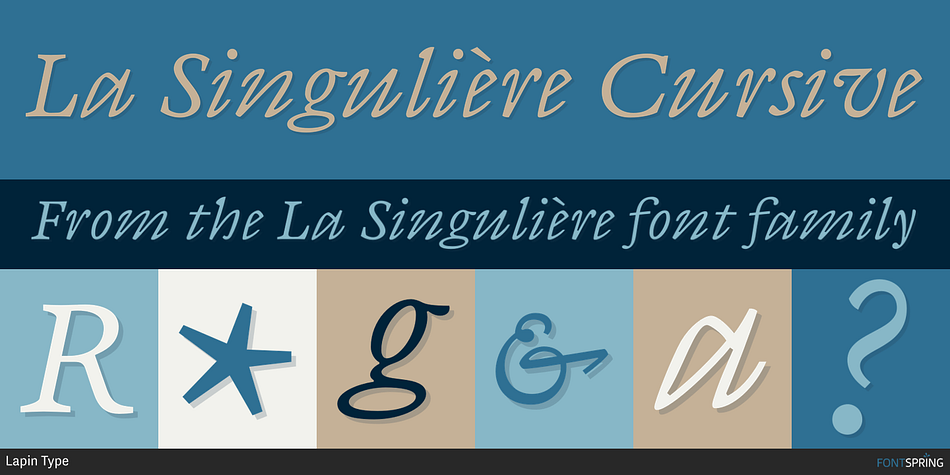
La Singulière Cursive
La Singulière is a serif font family. This typeface has two styles and was published by Lapin Type.
La Singulière is a multi-script Garalde text typeface designed to be easy to read at small print sizes.
The story began during the Expert class Type design in the Plantin Institute of Typography. Its design is based on high-resolution photographs of original printing type punches and matrices from the sixteenth century found in the Museum Plantin-Moretus in Antwerp.
With a characterset covering over 180 languages in 4 scripts, and OpenType features to support it,  La Singulière will handle anything you throw at it! As long as it isn’t bold.